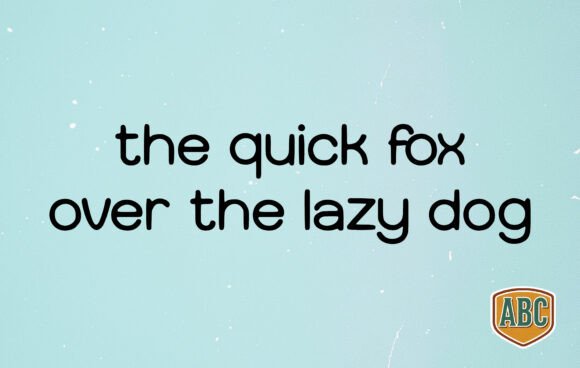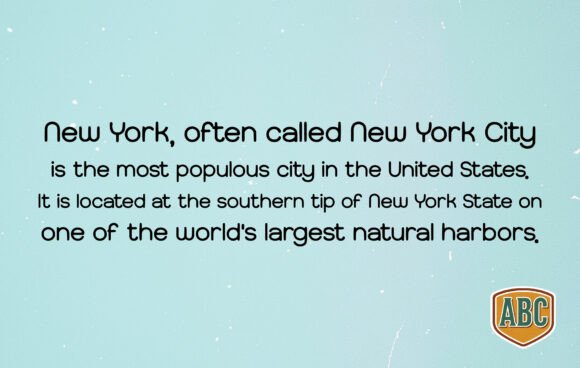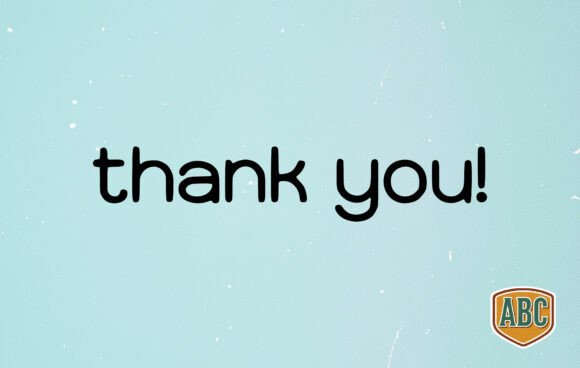
Introduction to Powder Blue Font Font
Fonts play a crucial role in design, and the Powder Blue Font font is a typeface that brings both character and versatility to any project. Whether you’re working on a branding project, a website, or a print design, the Powder Blue Font font offers a unique style that can elevate your work.
Infuse your designs with a sense of calm and clarity using PowderBlue, a friendly sans-serif that embodies effortless modernism.
Featuring perfectly rounded terminals and a monolinear stroke, this typeface offers a clean, geometric look that feels soft and approachable rather than rigid PowderBlue is the ultimate choice for brands that value simplicity and a “zen” aesthetic.
The Powder Blue Font font is more than just a typeface – it’s a design tool that helps you communicate your message with style and clarity. Its unique character set and versatile design make it suitable for a wide range of applications, from elegant invitations to bold headlines.
With its carefully crafted letterforms and balanced proportions, the Powder Blue Font font ensures readability and visual appeal across all mediums.
The Powder Blue Font font stands out with its unique design, exceptional readability, and versatility across various design applications.